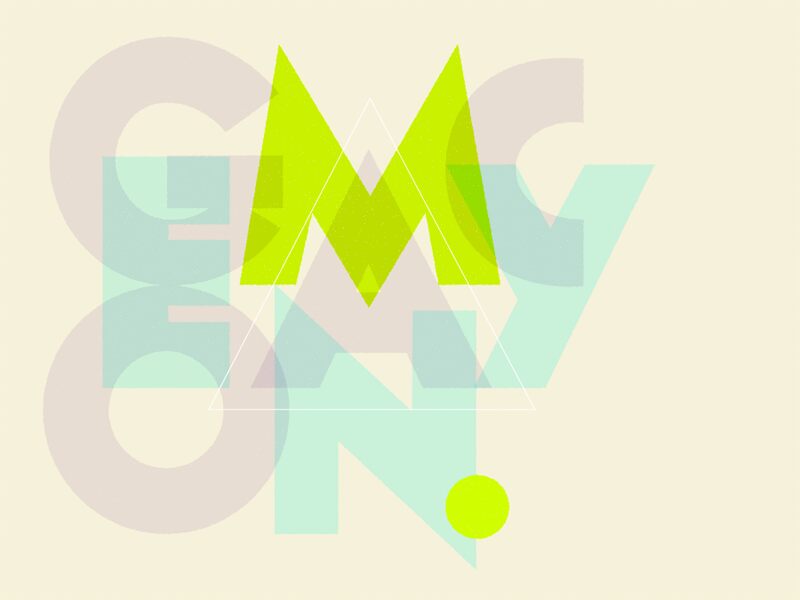
Geomancy Extra Bold by Natasha Maria Fernandez-Fountain of One by Four is a free geometric display font built from massive, sharply simplified capitals. Broad circles and steep diagonal cuts shape its compact silhouette.
As an oversized graphic emblem, it suits music posters, streetwear branding, and game title screens, where the near-solid forms can match assertive imagery. Its circles and triangular notches can also become part of a record sleeve or event identity, turning the lettering into a set of recognizable geometric symbols.